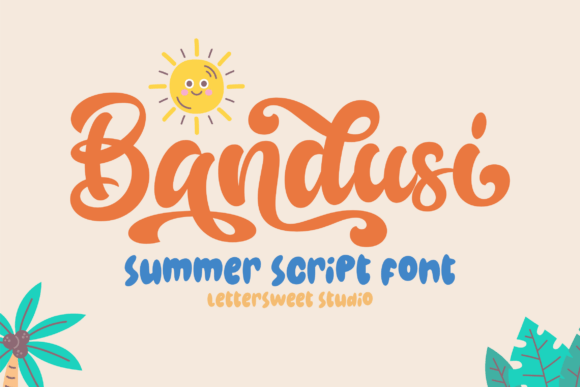
Introducing Bandusi Font: The Playful Summer Script Font That Brings Sunshine to Your Designs
Are you tired of using the same old fonts in your designs? Do you want to add a touch of warmth and joy to your work? Look no further than Bandusi, a playful summer script font that’s perfect for fun and vibrant projects. In this article, we’ll take a closer look at Bandusi and explore its features, benefits, and uses.
What is Bandusi Font?
Bandusi is a hand-lettered script font that’s inspired by sunny days and tropical vibes. Its cheerful style and smooth, bouncy strokes make it perfect for adding a happy, handmade touch to your designs. Whether you’re a designer, illustrator, or creative entrepreneur, Bandusi is a great choice for projects that require a playful and vibrant feel.
Key Features of Bandusi Font
- Hand-lettered style: Bandusi has a unique, hand-lettered style that gives it a friendly and approachable personality.
- Smooth, bouncy strokes: The font’s smooth, bouncy strokes add a playful touch to your designs and make them more visually appealing.
- Flowing curves: Bandusi’s flowing curves make it perfect for creating beautiful, flowing text that grabs attention.
- Cheerful and vibrant: The font’s cheerful and vibrant style makes it perfect for fun and lively projects.
Uses of Bandusi Font
Bandusi is a versatile font that can be used in a variety of projects, including:
- T-shirt designs: Bandusi is perfect for creating fun and playful t-shirt designs that appeal to a wide range of audiences.
- Kids’ branding: The font’s cheerful style makes it a great choice for kids’ branding projects, such as logos, packaging, and marketing materials.
- Party invitations: Bandusi is perfect for creating fun and playful party invitations that set the tone for a lively and memorable event.
- Product packaging: The font’s smooth, bouncy strokes make it a great choice for product packaging that needs to stand out on store shelves.
Benefits of Using Bandusi Font
There are many benefits to using Bandusi in your designs, including:
- Unique and eye-catching: Bandusi is a unique and eye-catching font that will help your designs stand out from the crowd.
- Easy to read: Despite its playful style, Bandusi is easy to read and can be used in a variety of contexts.
- Versatile: The font’s versatility makes it perfect for a wide range of projects and applications.
- High-quality: Bandusi is a high-quality font that’s designed to deliver exceptional results.
Tips for Using Bandusi Font
Here are some tips for using Bandusi in your designs:
- Use it with contrasting colors: Bandusi looks great when paired with contrasting colors that make it stand out.
- Experiment with different sizes: The font looks great in a variety of sizes, from small to large.
- Pair it with other fonts: Bandusi can be paired with other fonts to create a unique and visually appealing combination.
- Use it sparingly: While Bandusi is a fun and playful font, it’s best used sparingly to avoid overwhelming the senses.
In conclusion, Bandusi is a playful summer script font that’s perfect for adding a touch of warmth and joy to your designs. Its unique, hand-lettered style and smooth, bouncy strokes make it a great choice for fun and vibrant projects. Whether you’re a designer, illustrator, or creative entrepreneur, Bandusi is a versatile font that can help you achieve your design goals.